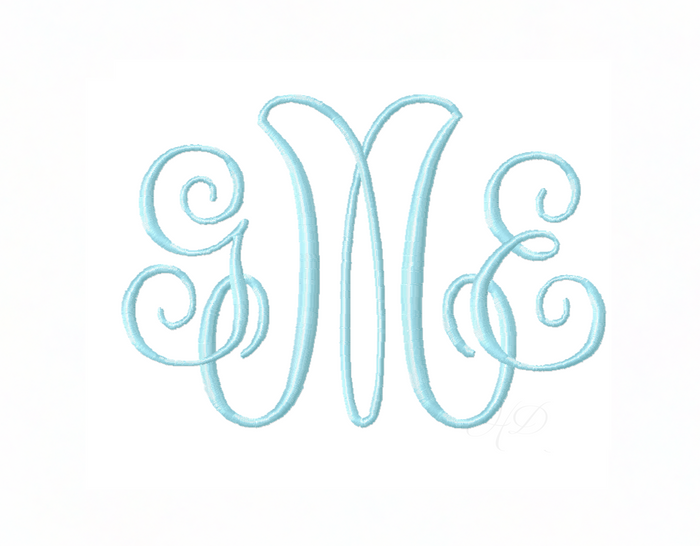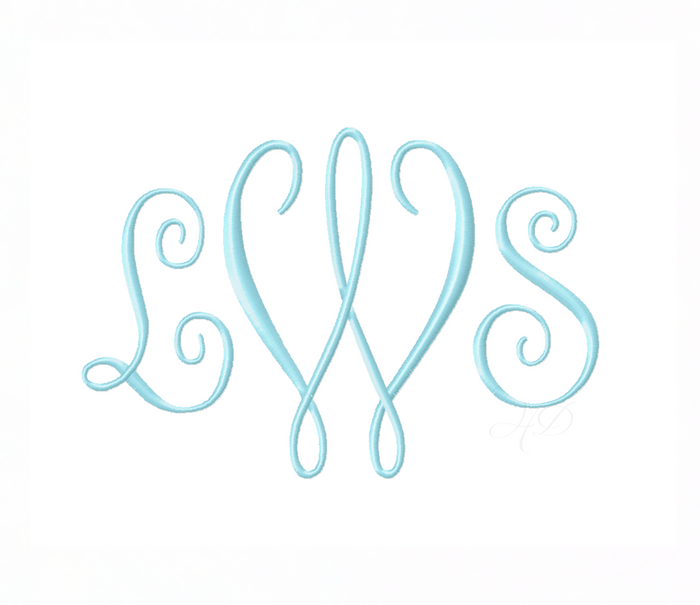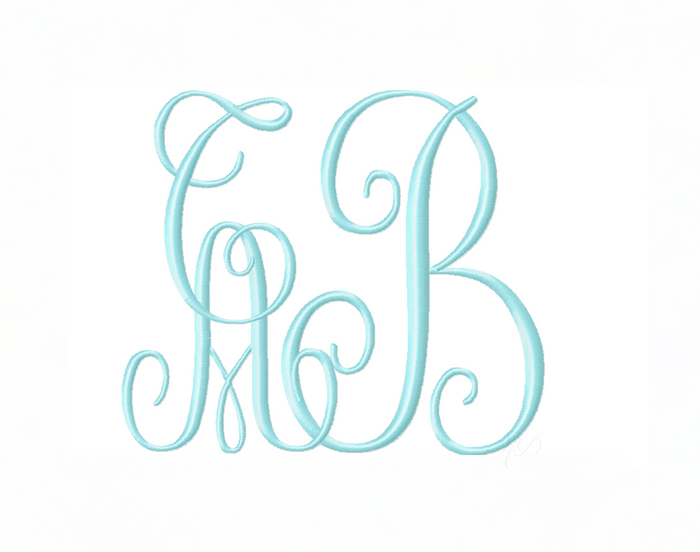
5x7 Large Lilly Anne Embroidery Font
Elevate your crafting projects with the 5x7 Large Lilly Anne Embroidery Font. This exquisite font package features five sizes of satin stitching, ranging from 3.5" to 5.5", making it ideal for versatile monogramming applications. Each size includes 52 uppercase letters with coordinating smaller letters, ensuring perfect fitment for your personalized creations.